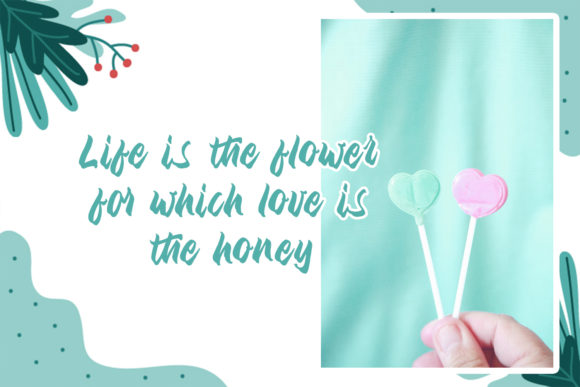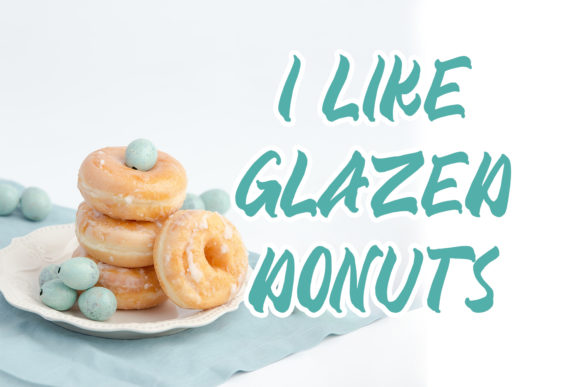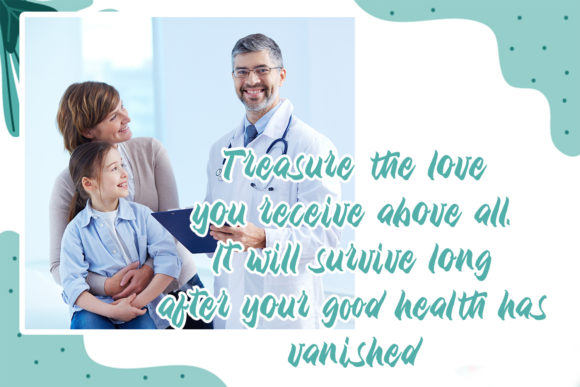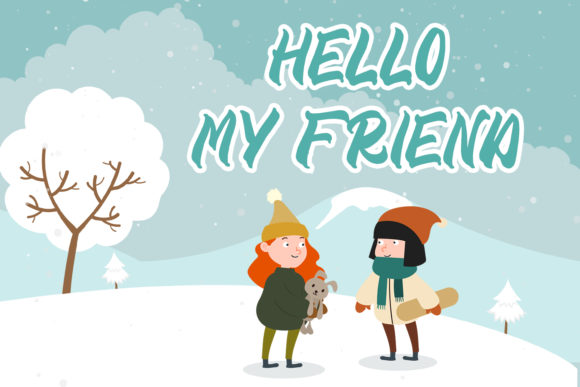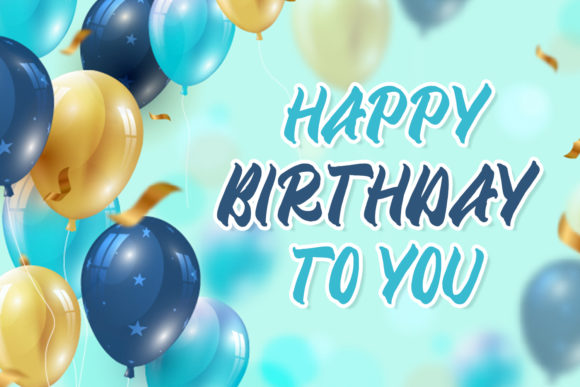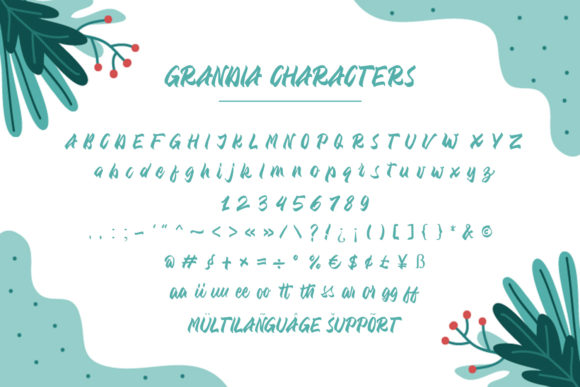
Introducing Grandia Font: Elevate Your Designs with Elegance and Sophistication
Are you a designer or crafter looking for a font that can add a touch of elegance and sophistication to your projects? Look no further than Grandia Font, a stunning display font that is sure to impress. With its original look and ultra-smooth lines, Grandia Font is the perfect choice for a wide range of crafty ideas, from letterheads and titles to stationery and more.
What Makes Grandia Font So Special?
Grandia Font is a unique and eye-catching font that is designed to make your designs stand out. Its original look is both elegant and sophisticated, making it perfect for designers and crafters who want to add a touch of class to their projects. Whether you’re creating a letterhead, title, or stationery, Grandia Font is sure to impress.
One of the key features that sets Grandia Font apart is its ultra-smooth lines. This makes it perfect for crafters with cutting machines, as it will cut smoothly and accurately, allowing you to create beautiful designs with ease. The font’s smooth lines also make it ideal for digital designs, such as social media graphics and blog posts.
The Perfect Choice for Crafters
Grandia Font is a crafter’s dream come true. Its smooth lines and elegant design make it perfect for a wide range of crafting projects, from paper crafting to vinyl cutting. Whether you’re creating custom party decorations, gift tags, or iron-on designs, Grandia Font is sure to add a touch of elegance and sophistication to your projects.
One of the best things about Grandia Font is its versatility. It can be used for a wide range of projects, from simple titles and headings to more complex designs and layouts. This makes it perfect for crafters who like to experiment and try new things.
Why Designers Love Grandia Font
Grandia Font is not just for crafters – it’s also a great choice for designers. Its elegant and sophisticated design makes it perfect for a wide range of design projects, from logos and branding to social media graphics and website headers.
One of the key benefits of Grandia Font is its ability to add a touch of elegance and sophistication to any design. Whether you’re creating a website, social media graphic, or print design, Grandia Font is sure to make your project stand out.
Tips for Using Grandia Font
Here are a few tips for getting the most out of Grandia Font:
- Use it for headings and titles: Grandia Font is perfect for headings and titles, as it’s designed to make a big impact.
- Experiment with different colors: Grandia Font looks great in a wide range of colors, so don’t be afraid to experiment and find the perfect color for your project.
- Pair it with other fonts: Grandia Font pairs well with a wide range of other fonts, so feel free to get creative and try out different combinations.
Grandia Font is a stunning display font that is sure to elevate your designs and add a touch of elegance and sophistication. With its original look, ultra-smooth lines, and versatility, it’s perfect for a wide range of crafty ideas, from letterheads and titles to stationery and more. Whether you’re a designer or crafter, Grandia Font is sure to become a favorite in your font collection.